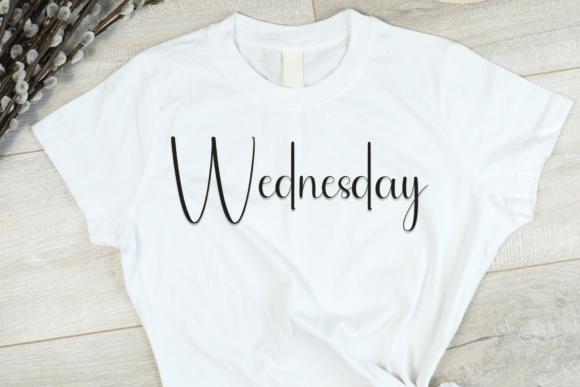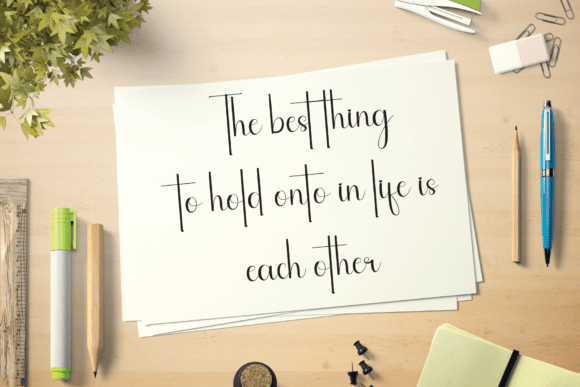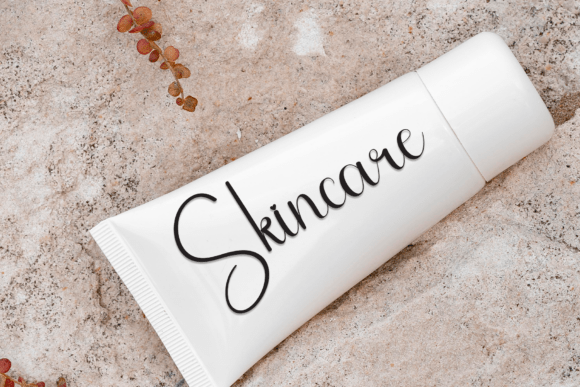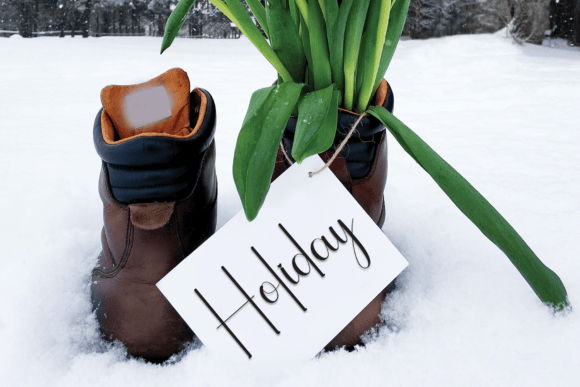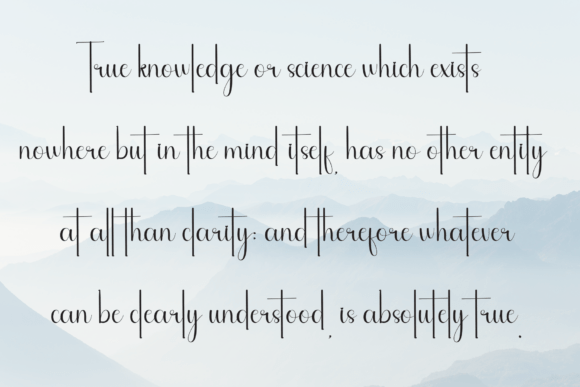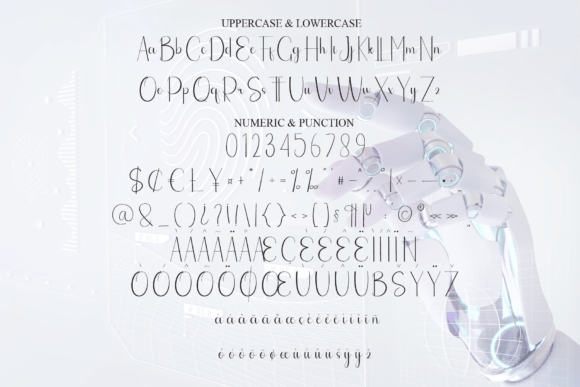
Introducing Digital: The Ultimate Stylish Handwritten Script Font
In the world of digital design, typography plays a crucial role in conveying the tone and personality of a brand or project. A well-chosen font can elevate your design, making it more engaging, sophisticated, and memorable. If you’re a designer, crafter, or simply a creative enthusiast, you’re likely on the lookout for the perfect font to add a touch of elegance and charm to your work. Look no further than Digital, a stunning handwritten script font that’s sure to captivate your audience.
The Essence of Digital: Elegance and Charm
Digital is a stylish handwritten script font that exudes elegance and charm with its fluid, graceful strokes. This beautiful font is perfect for adding a personal and sophisticated touch to your designs, whether you’re working on branding, invitations, stationery, or any other project that requires a touch of refinement. The smooth curves and natural flow of Digital create a timeless, refined look that’s sure to impress.
Key Features of Digital
- Fluid, graceful strokes: Digital’s elegant strokes are designed to flow smoothly, creating a natural and effortless look that’s perfect for a variety of design applications.
- Handwritten script style: This font’s handwritten script style adds a personal touch to your designs, making them more approachable and engaging.
- Sophisticated and refined: Digital’s smooth curves and natural flow create a sophisticated and refined look that’s perfect for high-end branding, luxury invitations, and elegant stationery.
- Versatile: This font is versatile and can be used for a wide range of design projects, from digital designs to print materials.
Digital is an excellent choice for designers and crafters who want to add a touch of elegance and sophistication to their work. Whether you’re creating:
- Branding materials: Use Digital to create stunning logos, business cards, and letterheads that reflect your brand’s personality and style.
- Invitations and stationery: Add a personal touch to your invitations, wedding cards, and stationery with Digital’s beautiful, flowing script.
- Digital designs: Use Digital to create engaging social media graphics, blog headers, and other digital designs that require a touch of elegance.
Why Choose Digital?
With so many fonts available, why choose Digital? Here are just a few reasons why this font stands out:
- Unique and distinctive: Digital’s elegant script style sets it apart from more traditional fonts, making it perfect for designers who want to create something unique and memorable.
- High-quality design: This font is designed with high-quality craftsmanship in mind, ensuring that it looks great in any design application.
- Easy to read: Despite its elegant style, Digital is easy to read, making it perfect for body text and other applications where legibility is important.
In conclusion, Digital is a stunning handwritten script font that’s perfect for designers and crafters who want to add a touch of elegance and sophistication to their work. With its fluid, graceful strokes, sophisticated style, and versatile design, Digital is an excellent choice for a wide range of design projects. Whether you’re creating branding materials, invitations, stationery, or digital designs, this font is sure to impress. So why wait? Try Digital today and elevate your designs to the next level!